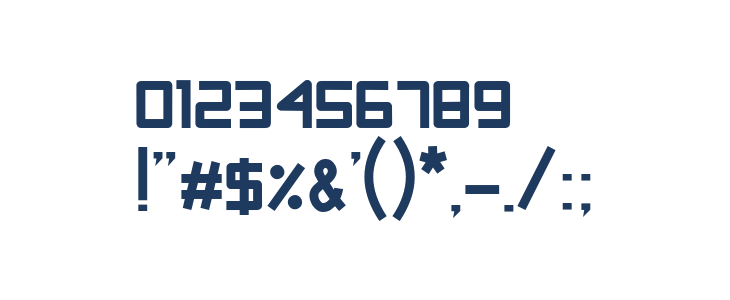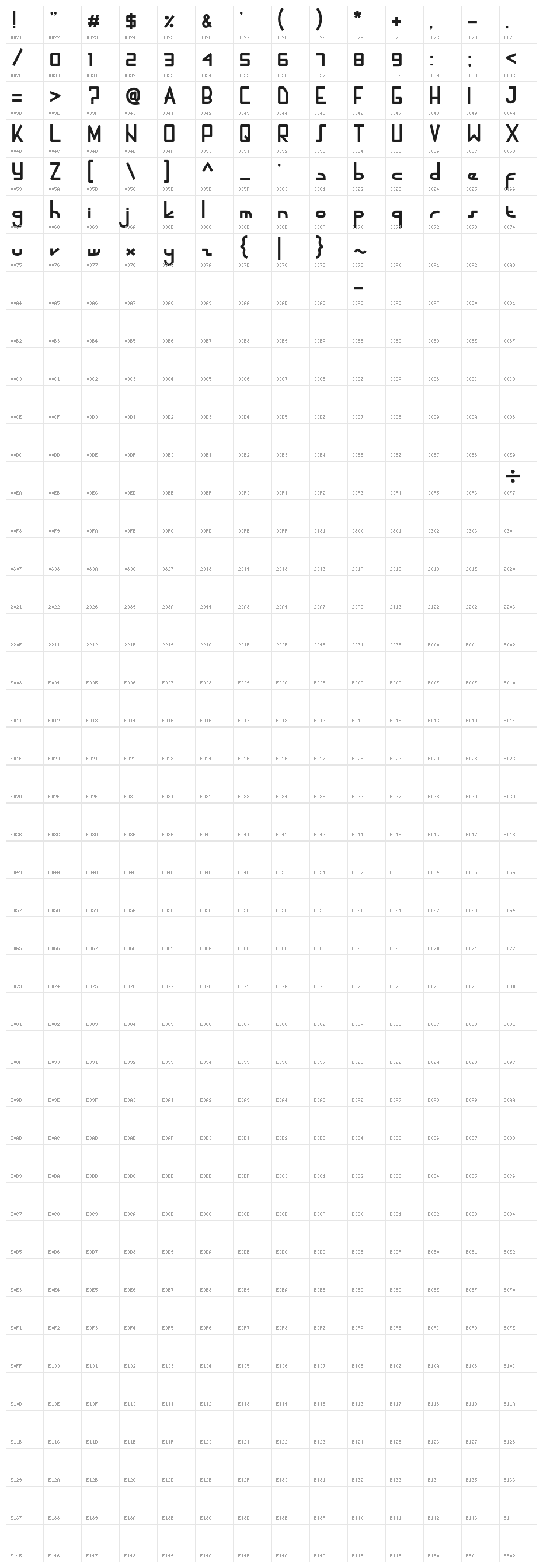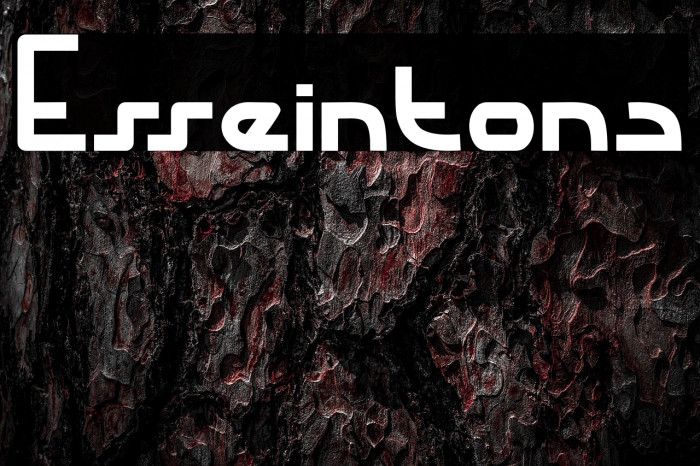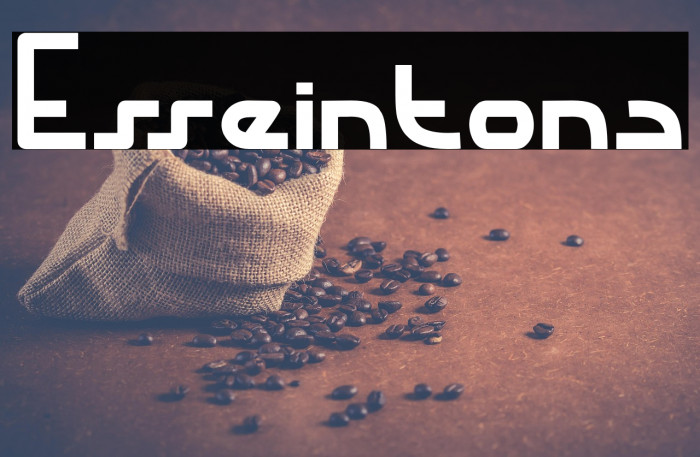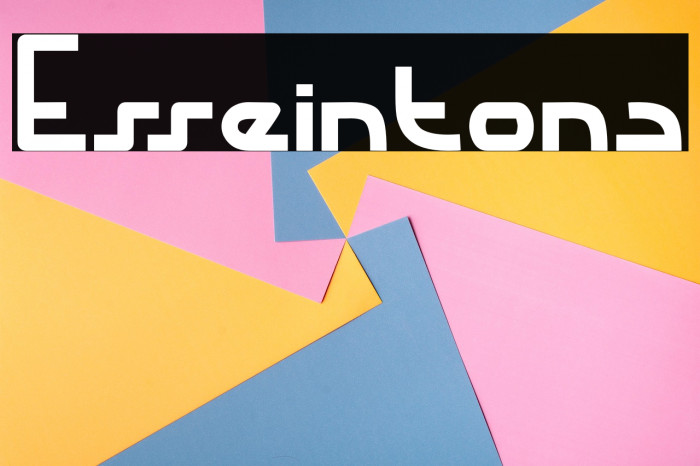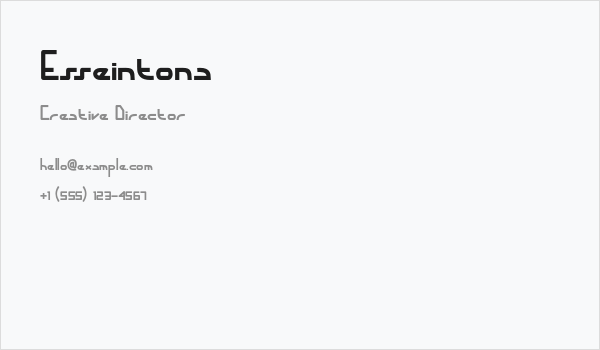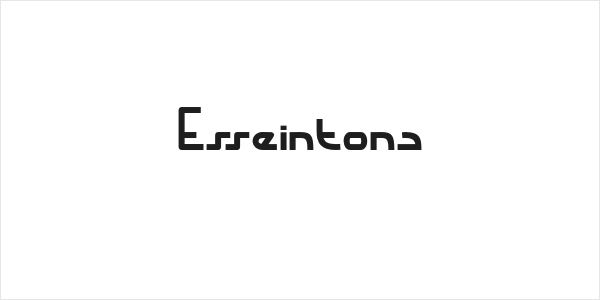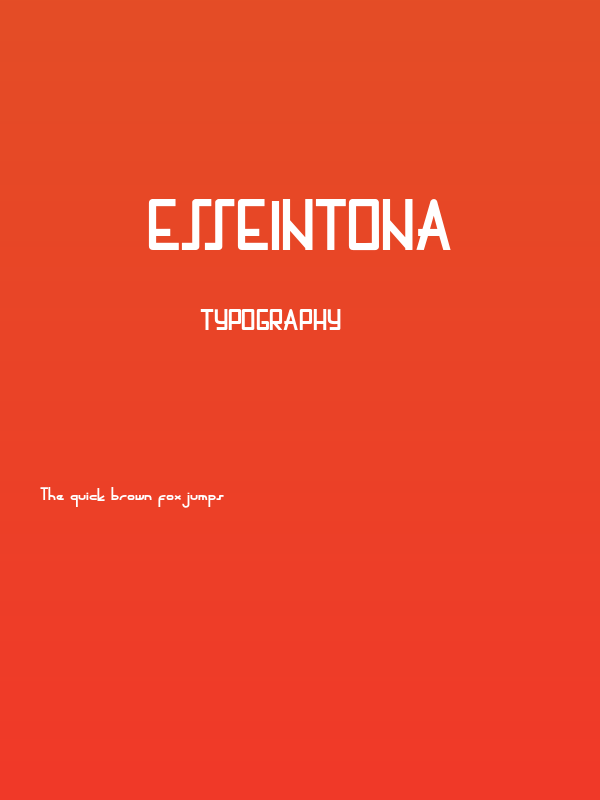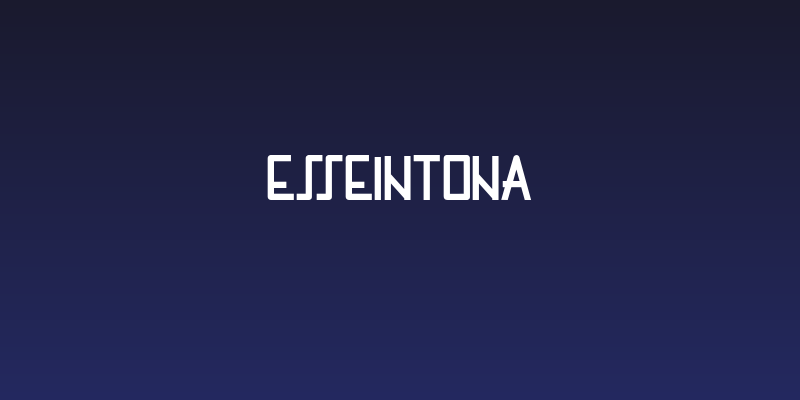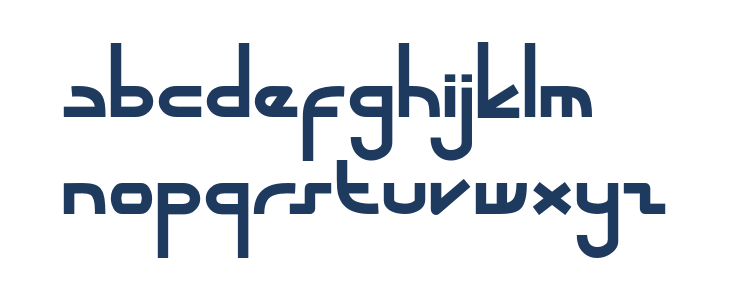
Esseintona Font
Esseintona Description
This font features a bold and geometric style with a modern twist. The uppercase letters are characterized by sharp angles and a consistent stroke width, giving them a futuristic appearance. The lowercase letters maintain a similar geometric structure, with some characters exhibiting unique, stylized elements that add a touch of creativity. The numerals are bold and clear, matching the overall aesthetic of the alphabet. Special characters are well-integrated, maintaining the font's cohesive design. This font's strong presence and distinctive look make it ideal for projects that require a modern and impactful visual statement.